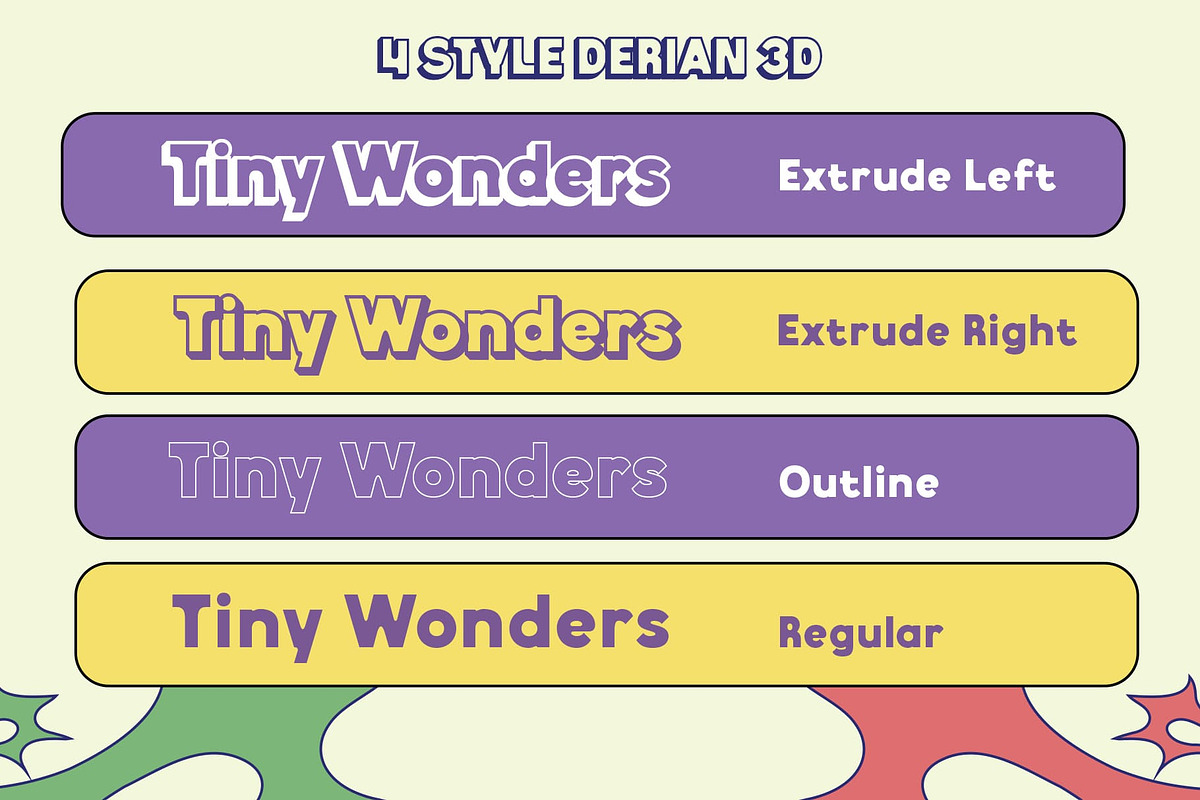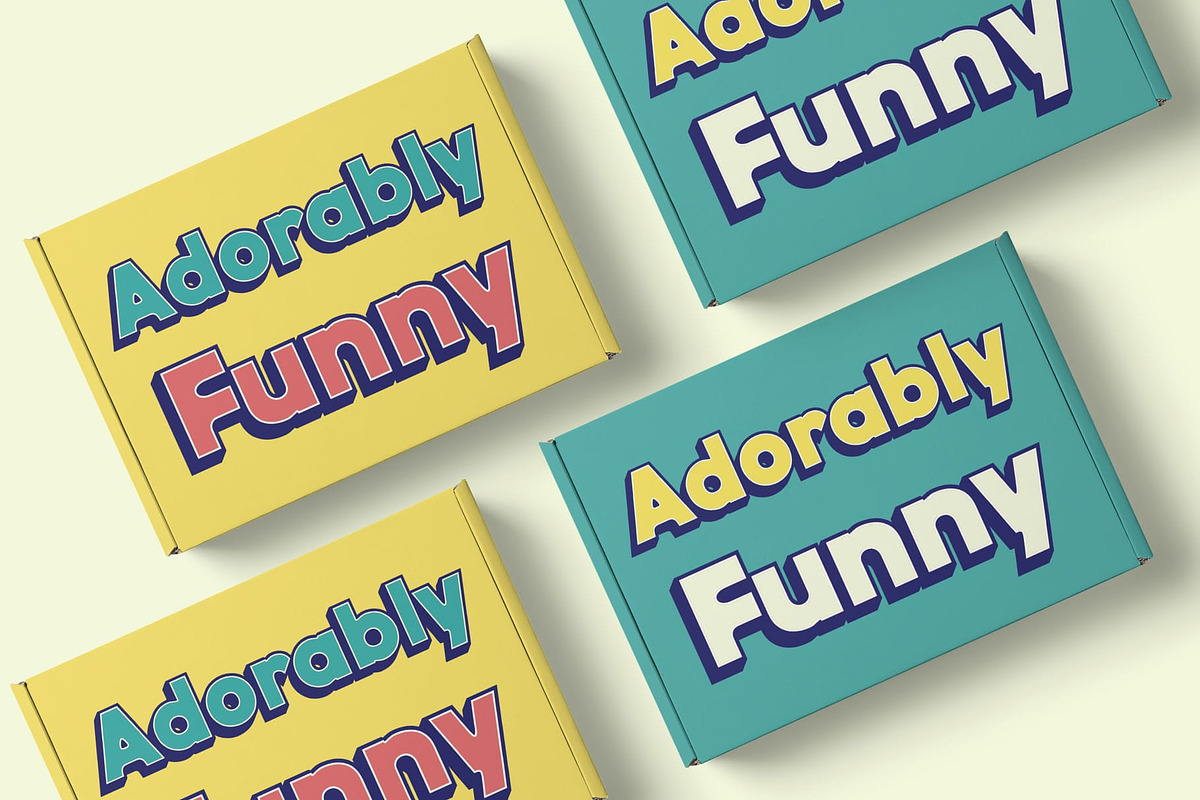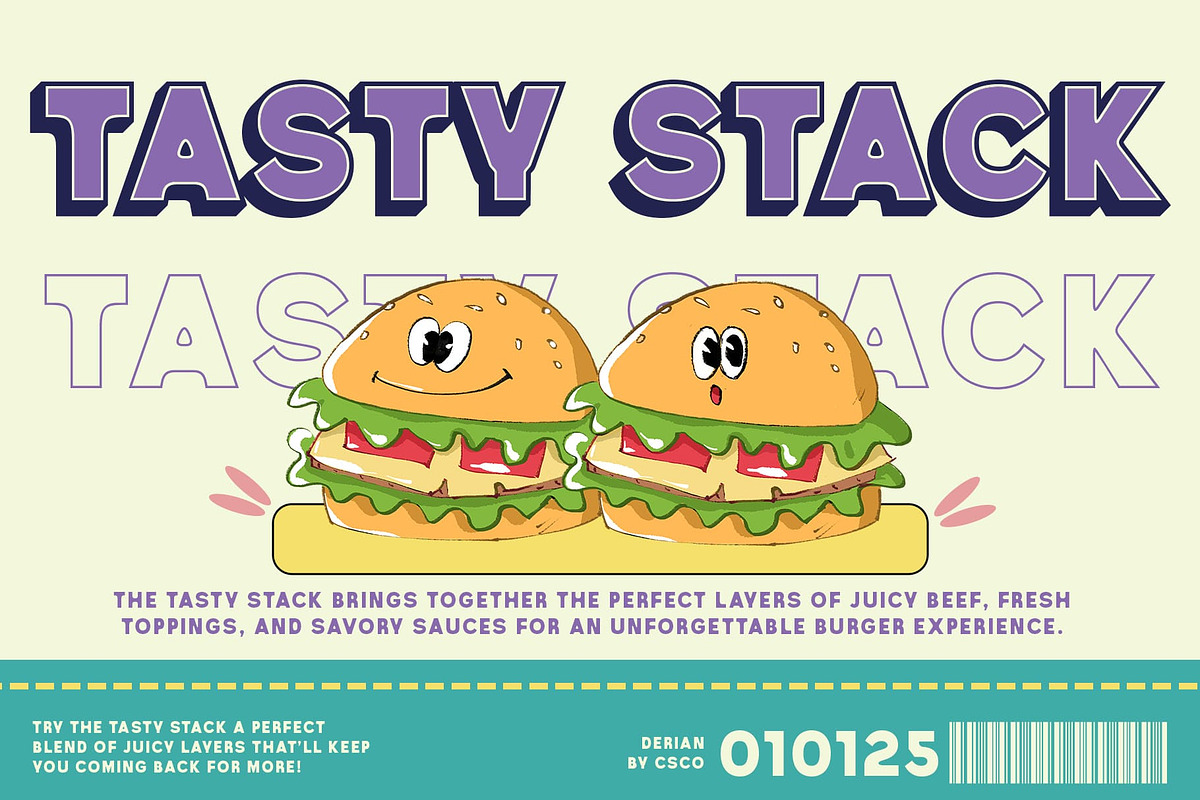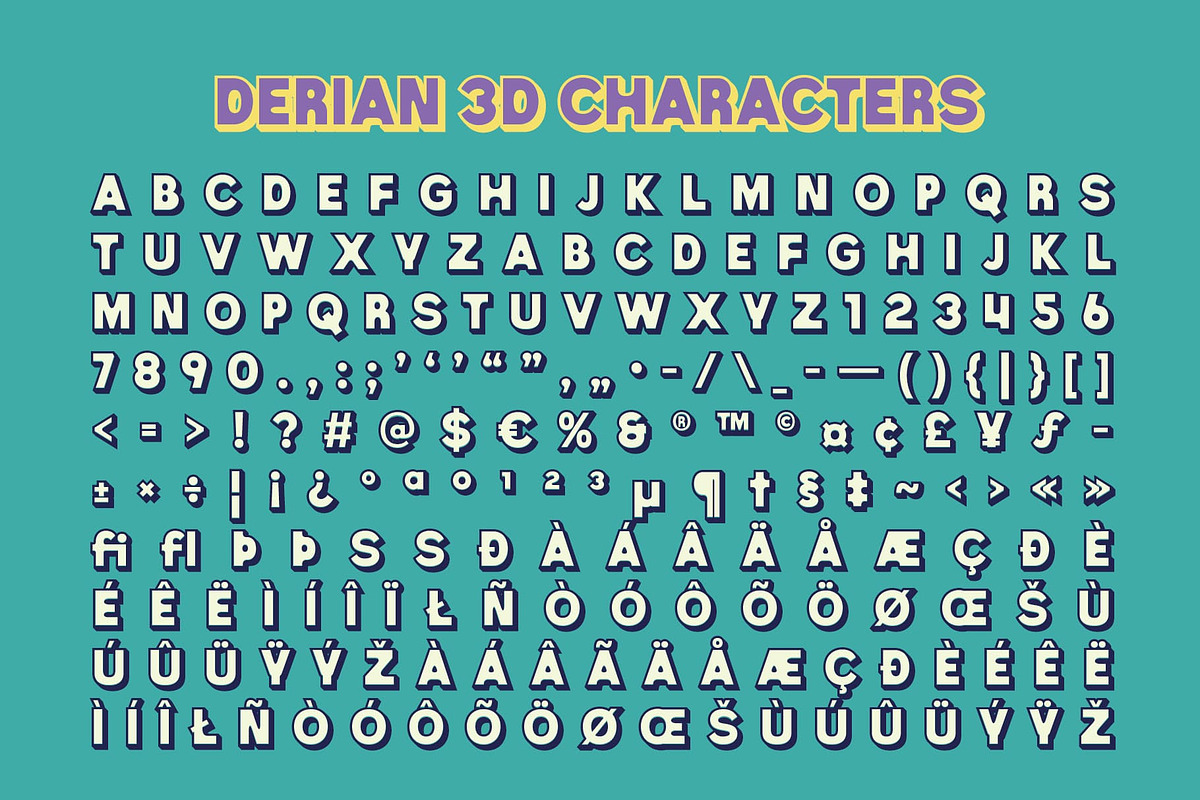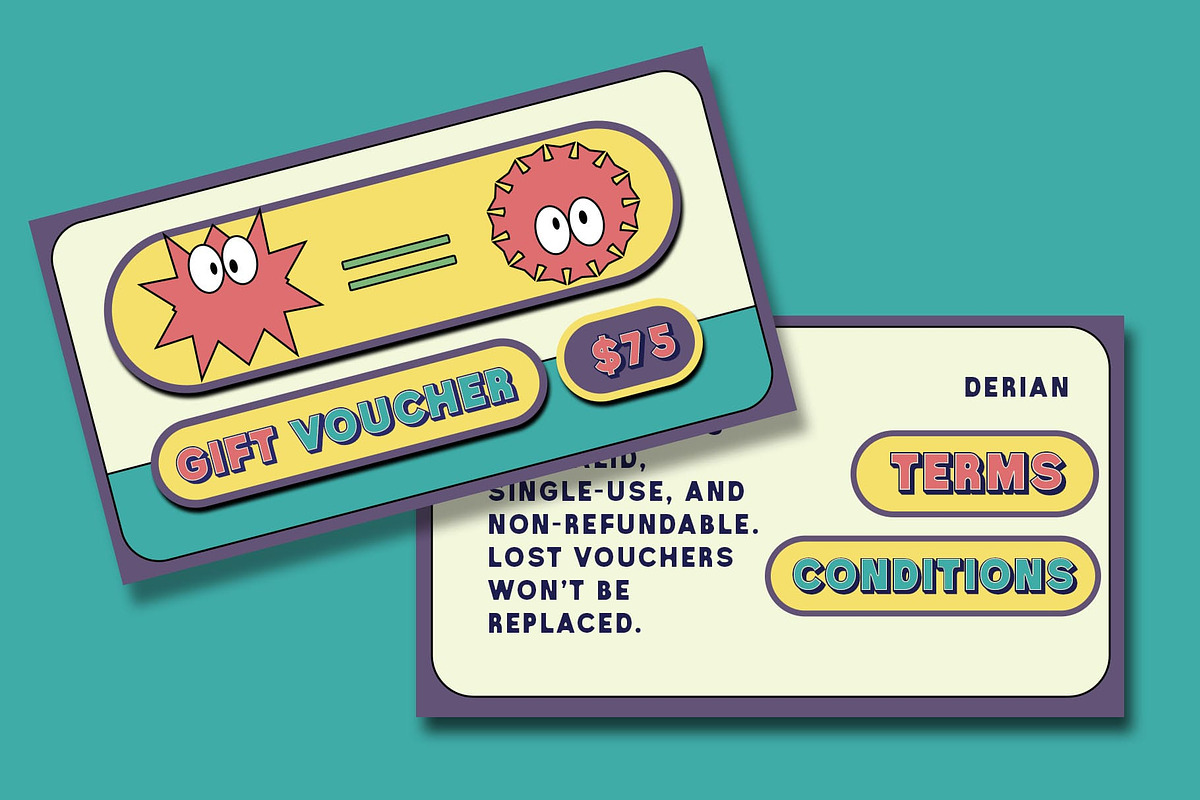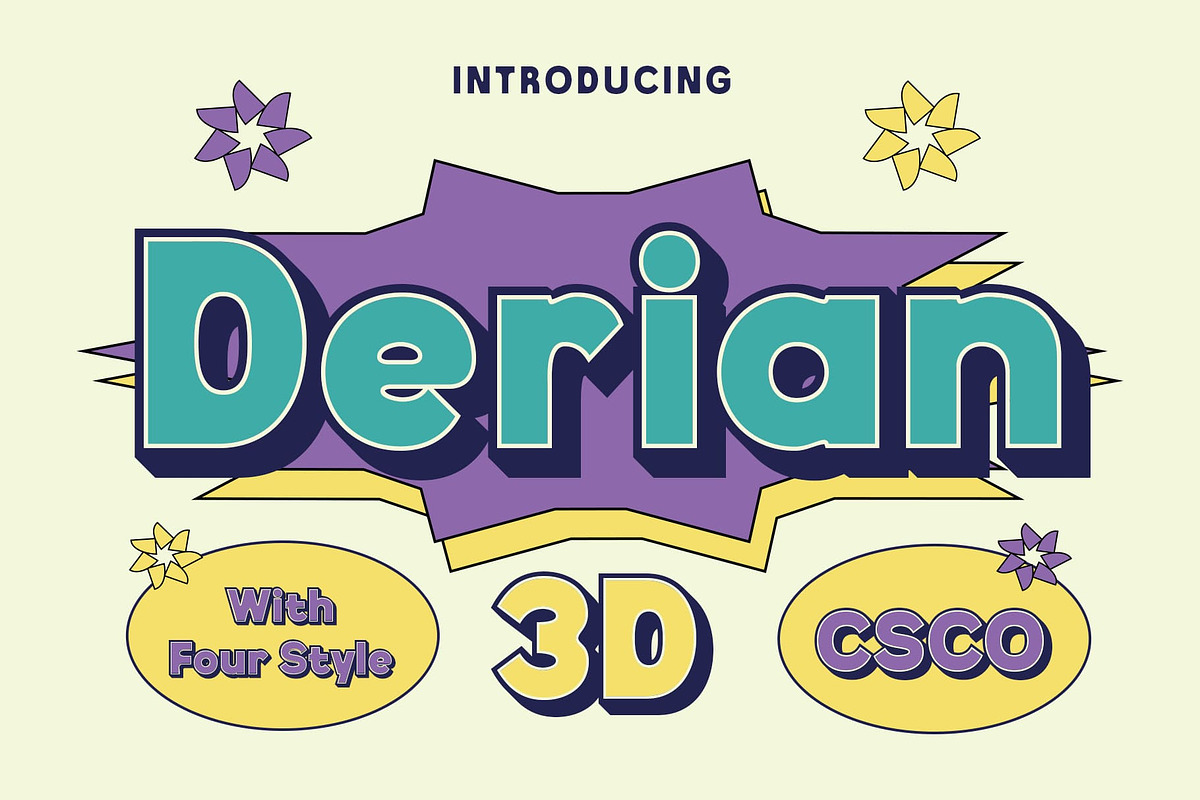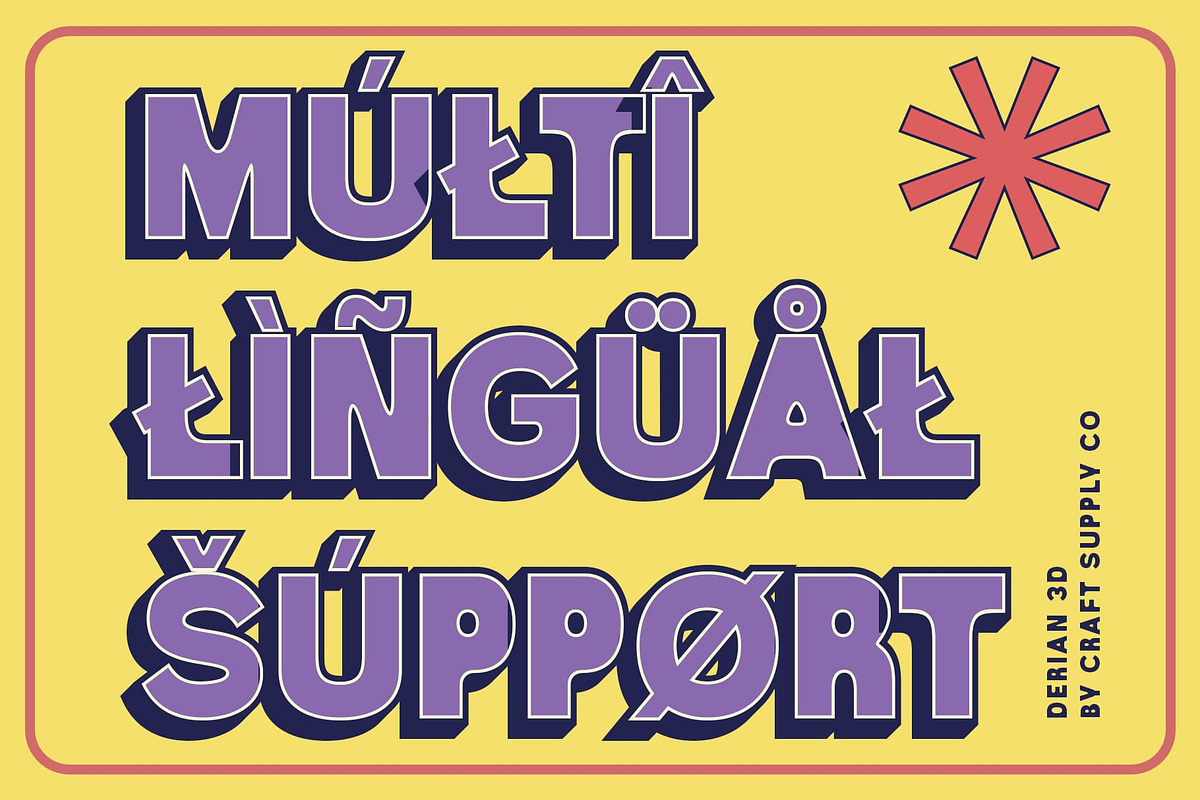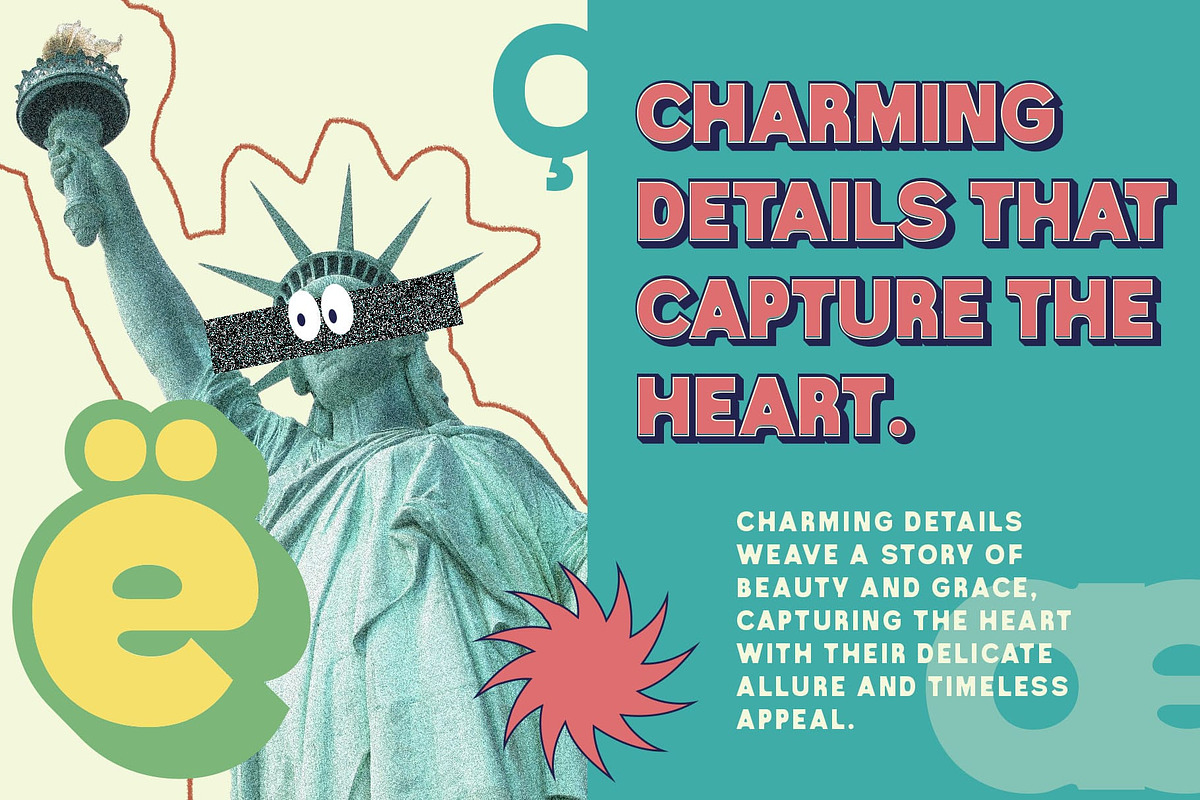
Derian 3D
Derian 3D Font: Bold, Playful, and Full of Life
Bold and Dynamic Design Derian 3D is a bold, modern sans-serif font that strikes the perfect balance between strength and playfulness. Its thick letterforms command attention, ensuring a strong presence in any design. The rounded, cute curves soften the impact, adding a warm and approachable vibe, making it an ideal choice for designs that need to stand out while remaining friendly and inviting.
Playful and Approachable Aesthetic The unique combination of boldness and softness in Derian 3D makes it perfect for creative projects that aim to inject fun and personality into their designs. Whether it’s children’s branding, posters, or vibrant advertisements, this font adds an element of joy and whimsy, ensuring the message feels lighthearted and engaging.
3D Effect for Added Depth and Impact The addition of a dynamic 3D effect brings Derian 3D to life, creating depth and dimension that elevates the font’s visual appeal. This extra layer of richness ensures the font stands out, captivating attention with its bold and playful character. The 3D effect gives the design a sense of movement and energy, enhancing its playful nature.
- Derian Regular
- Derian Outline
- Derian Extrude Right
- Derian Extrude Left